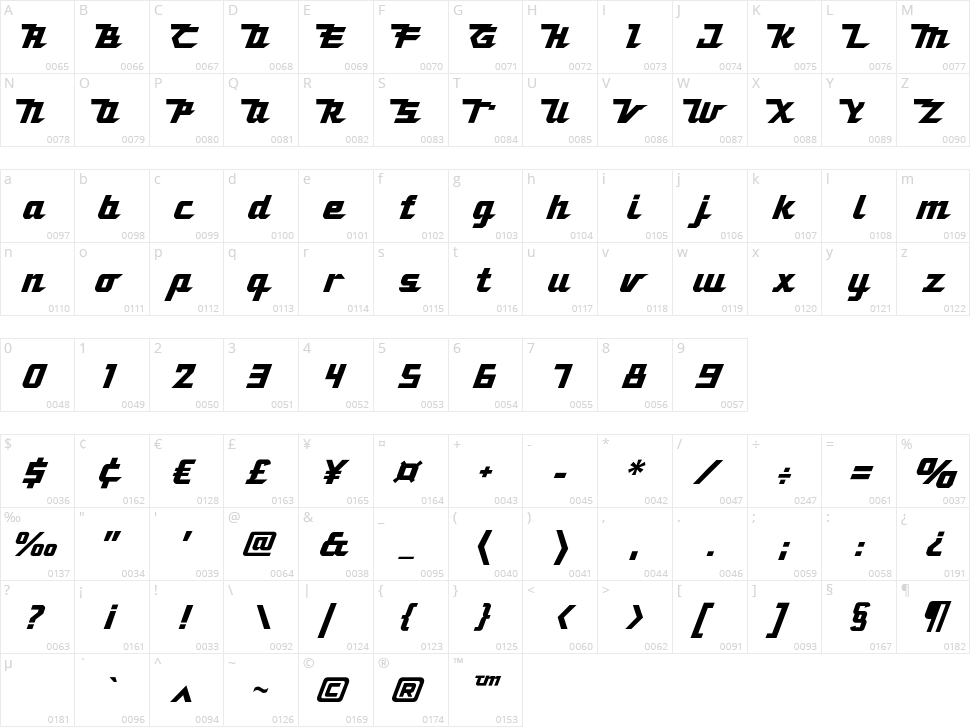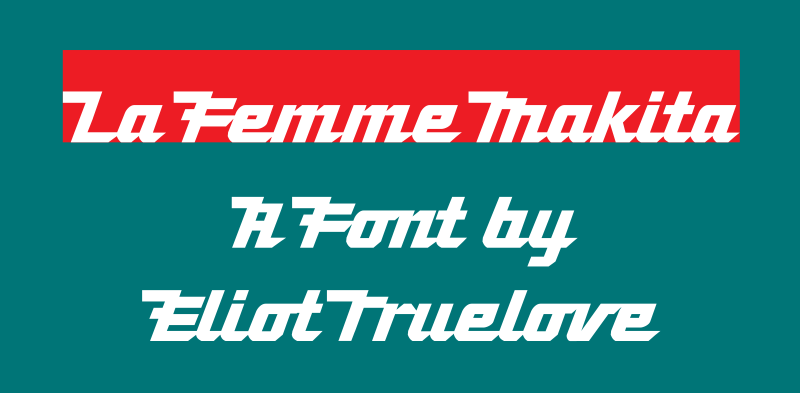
La Femme Makita
A font based on the Makita tool company logo.
I named it "La Femme Makita" because my wife will often help me on volunteer building projects while using my Makita tools, so I affectionately call her "La Femme Makita".